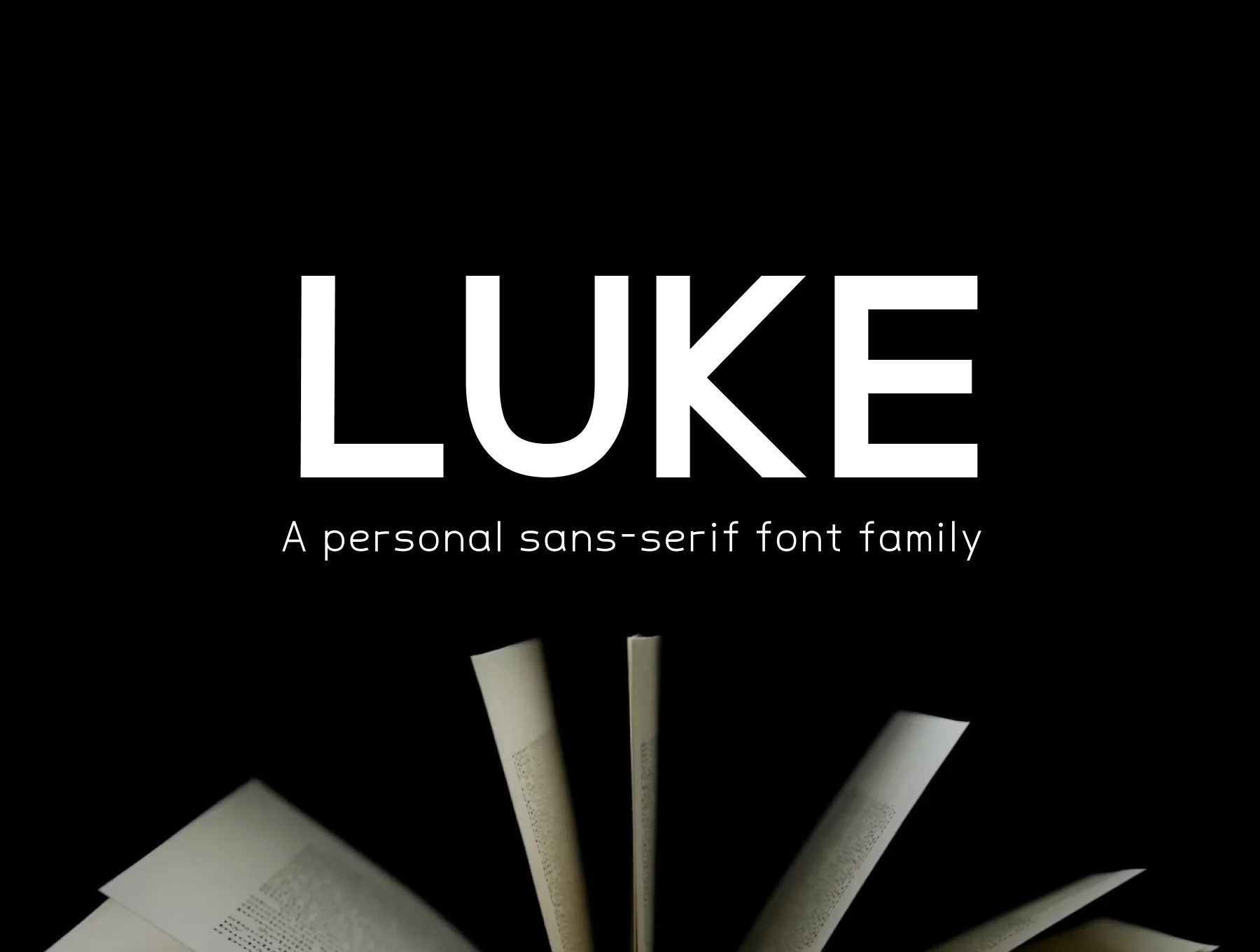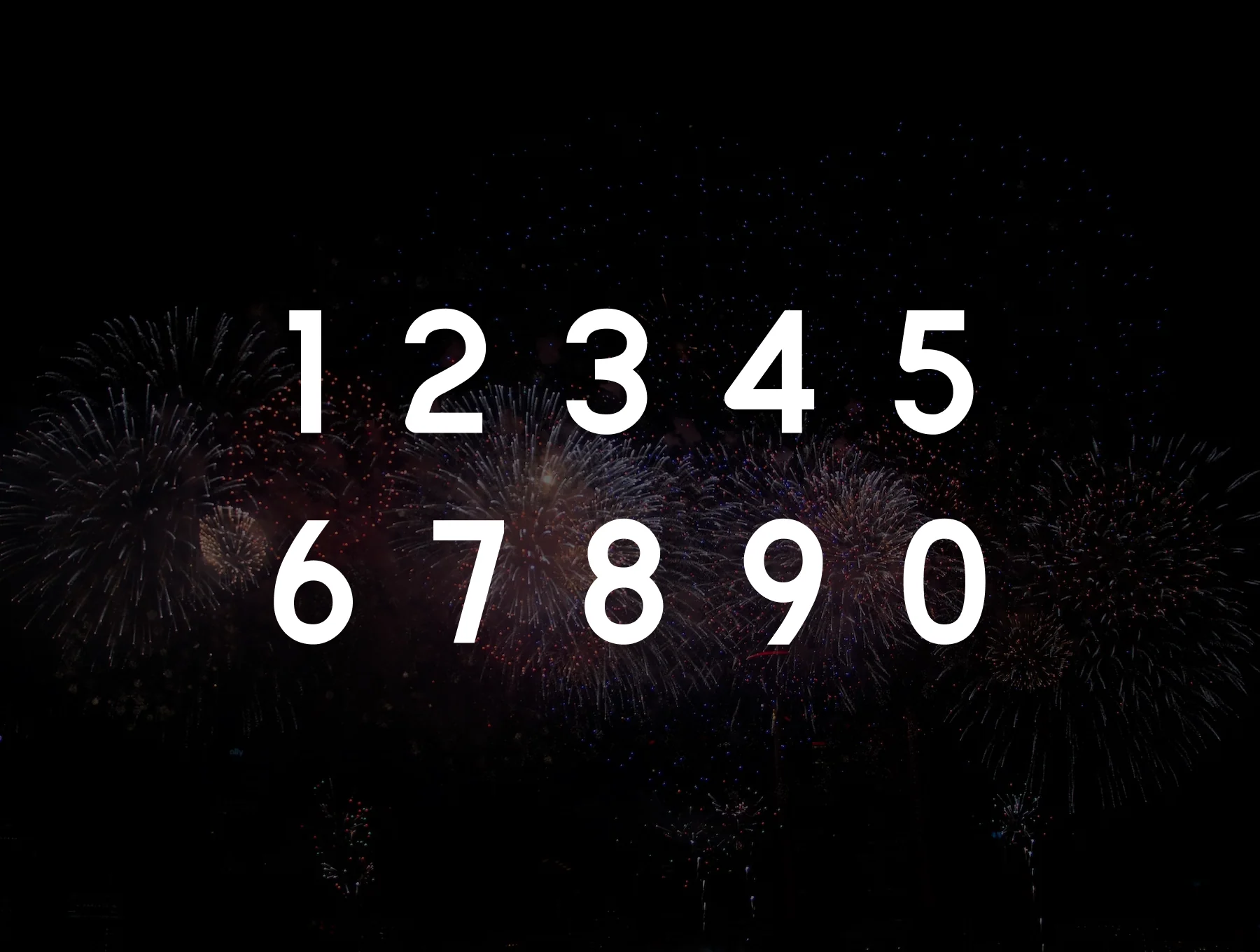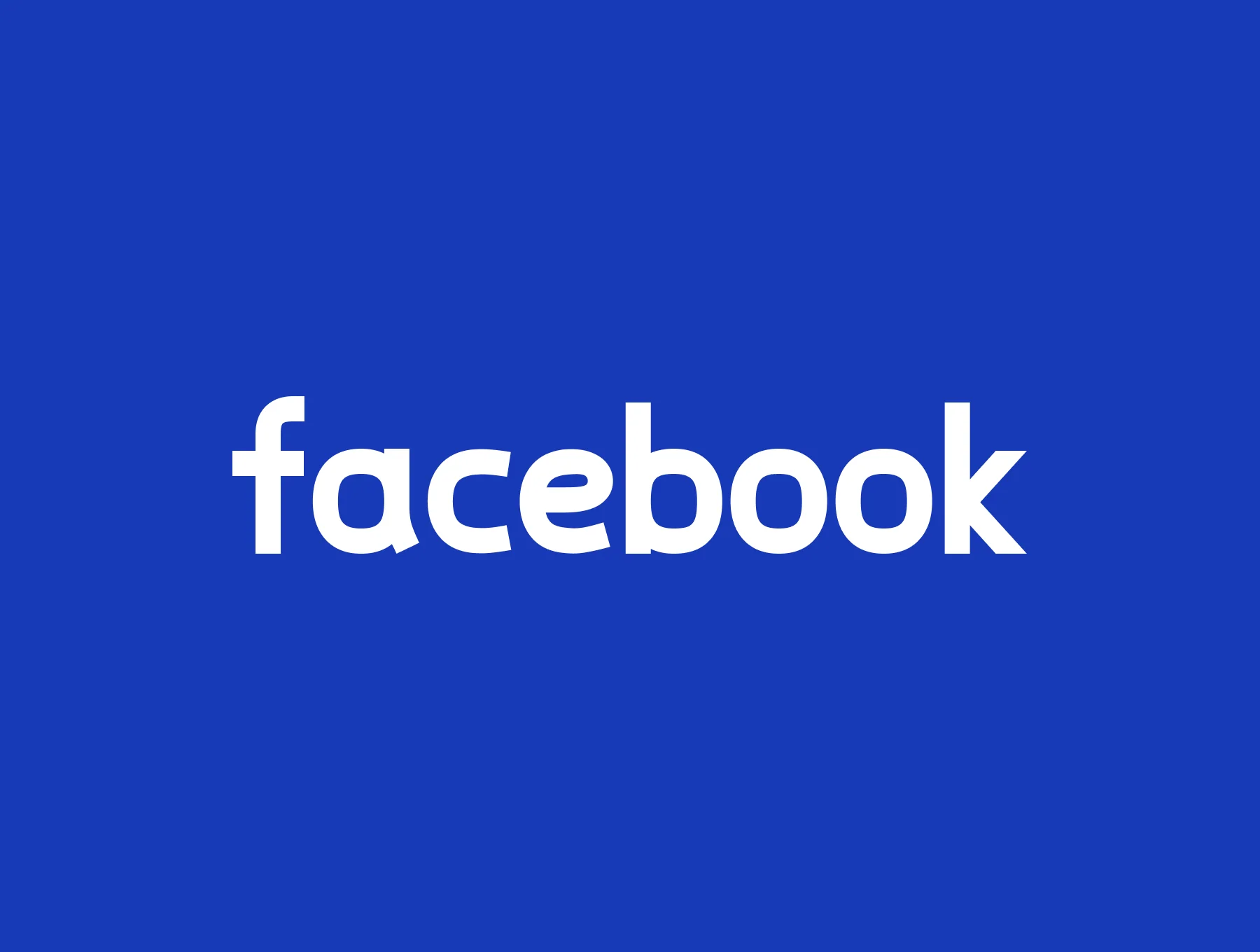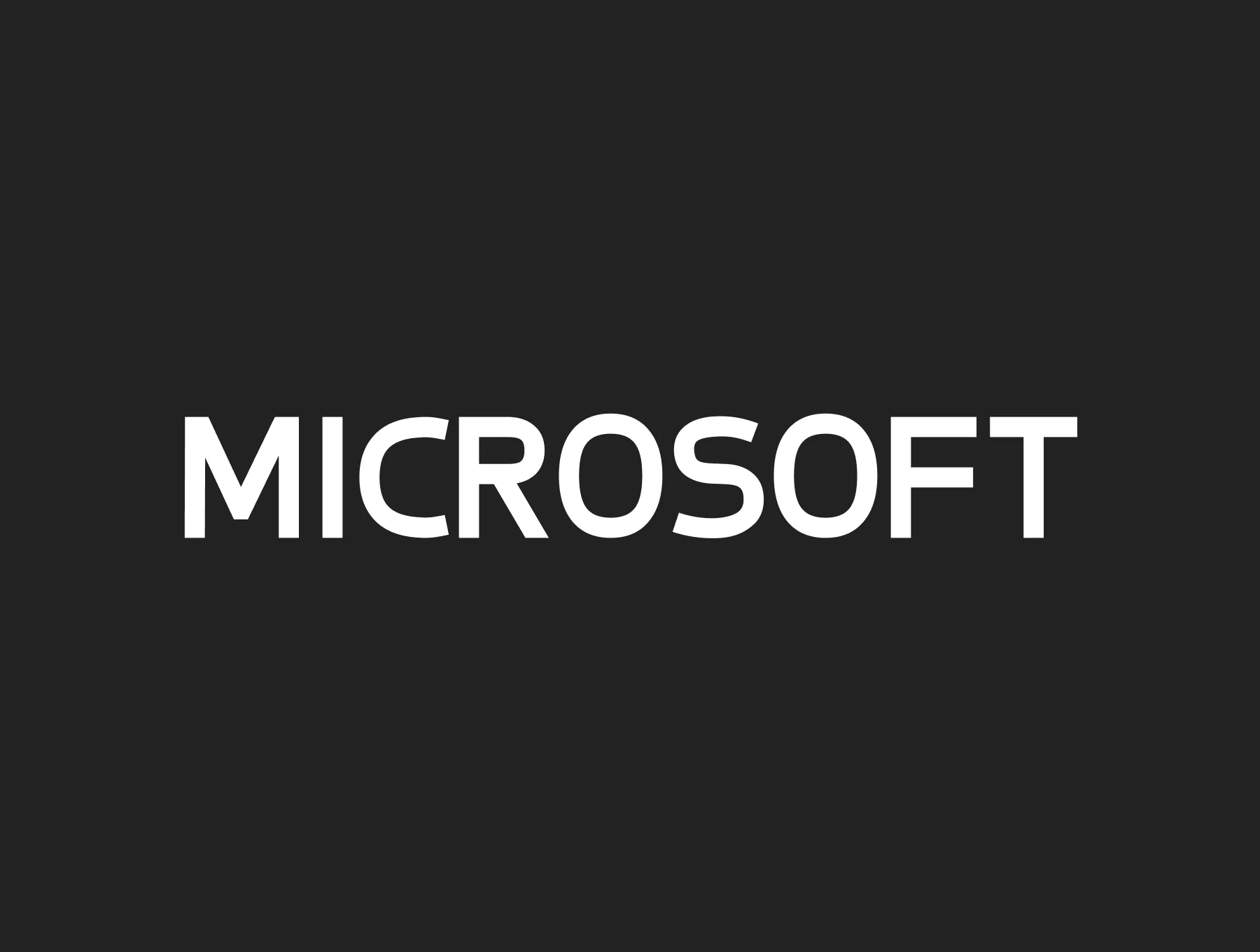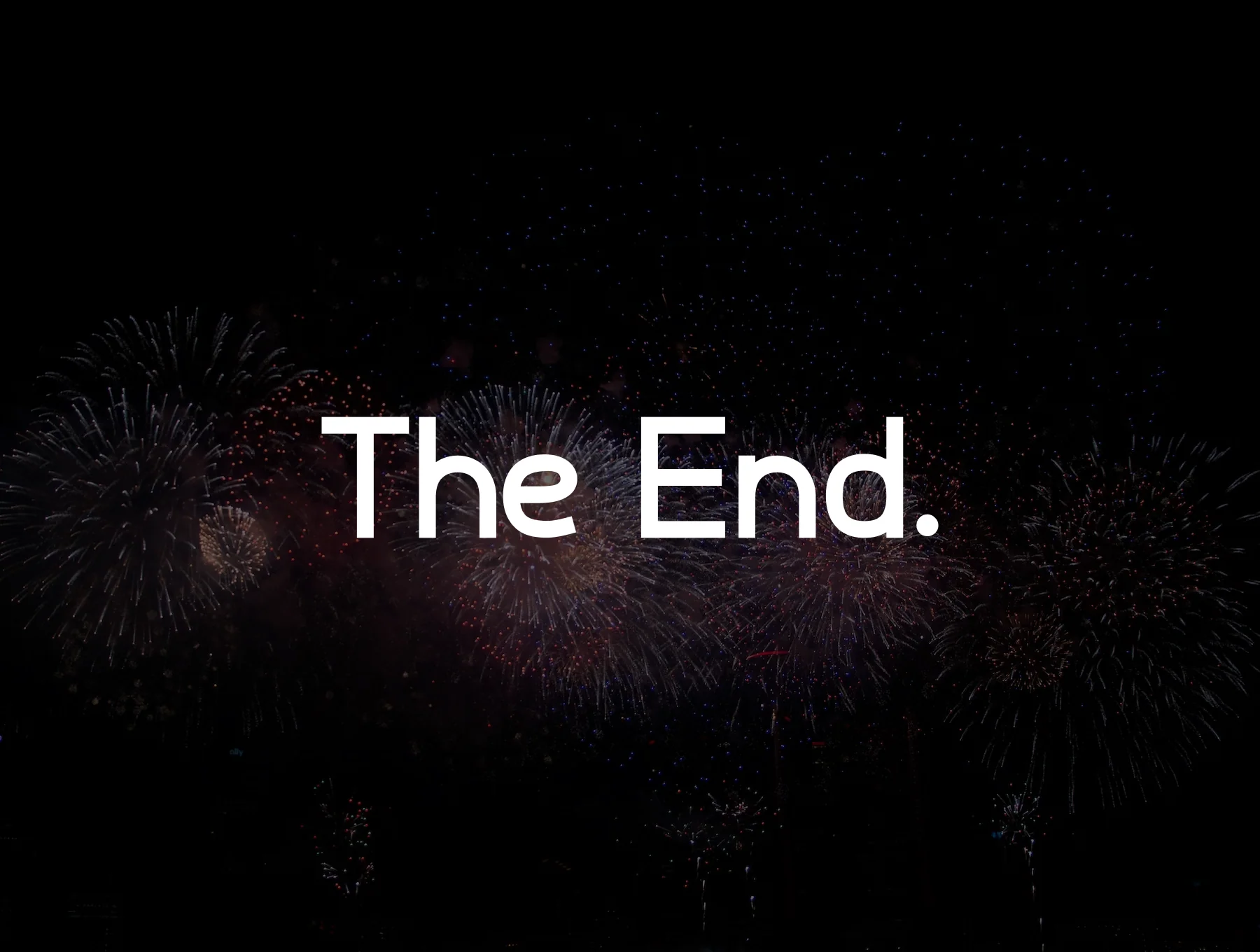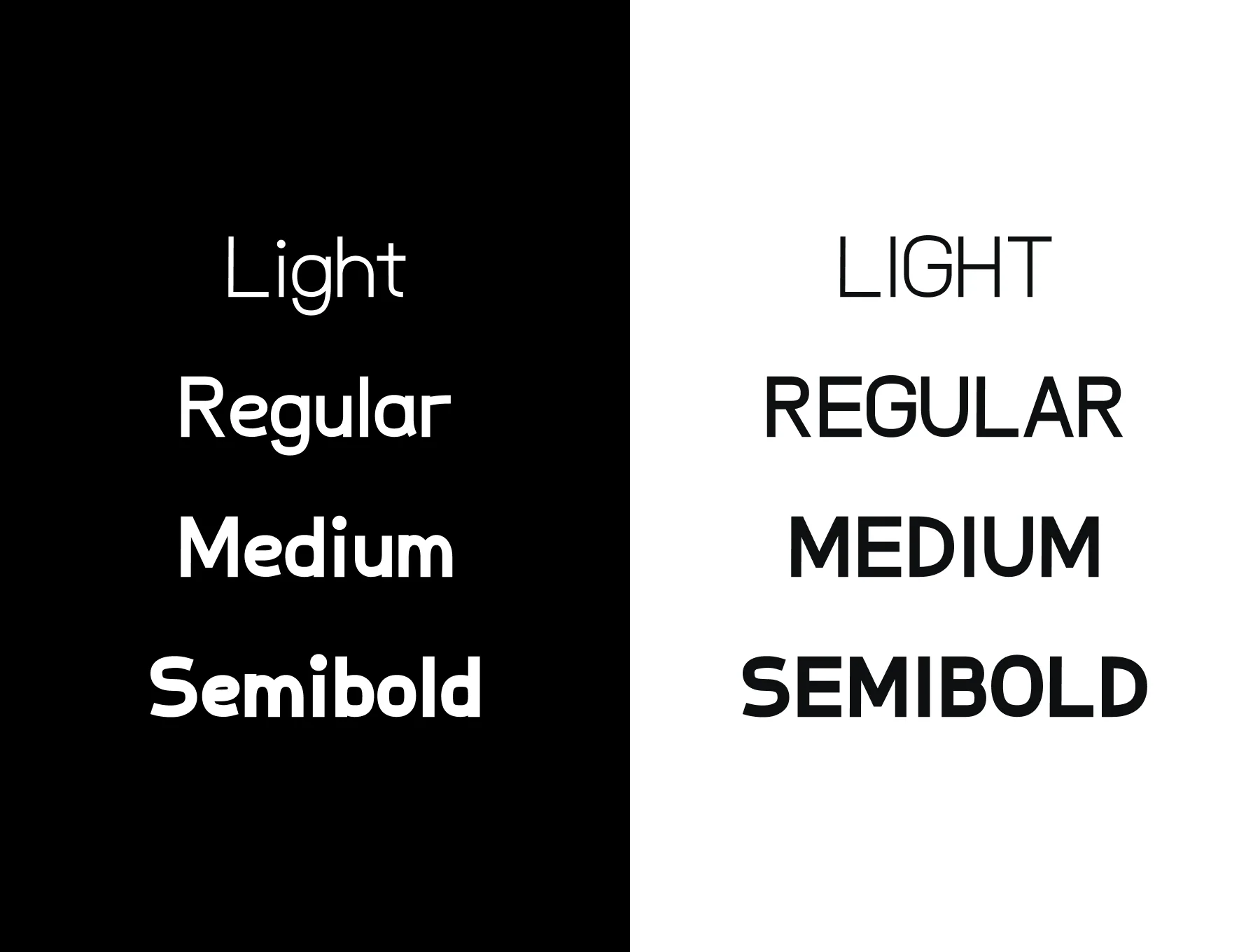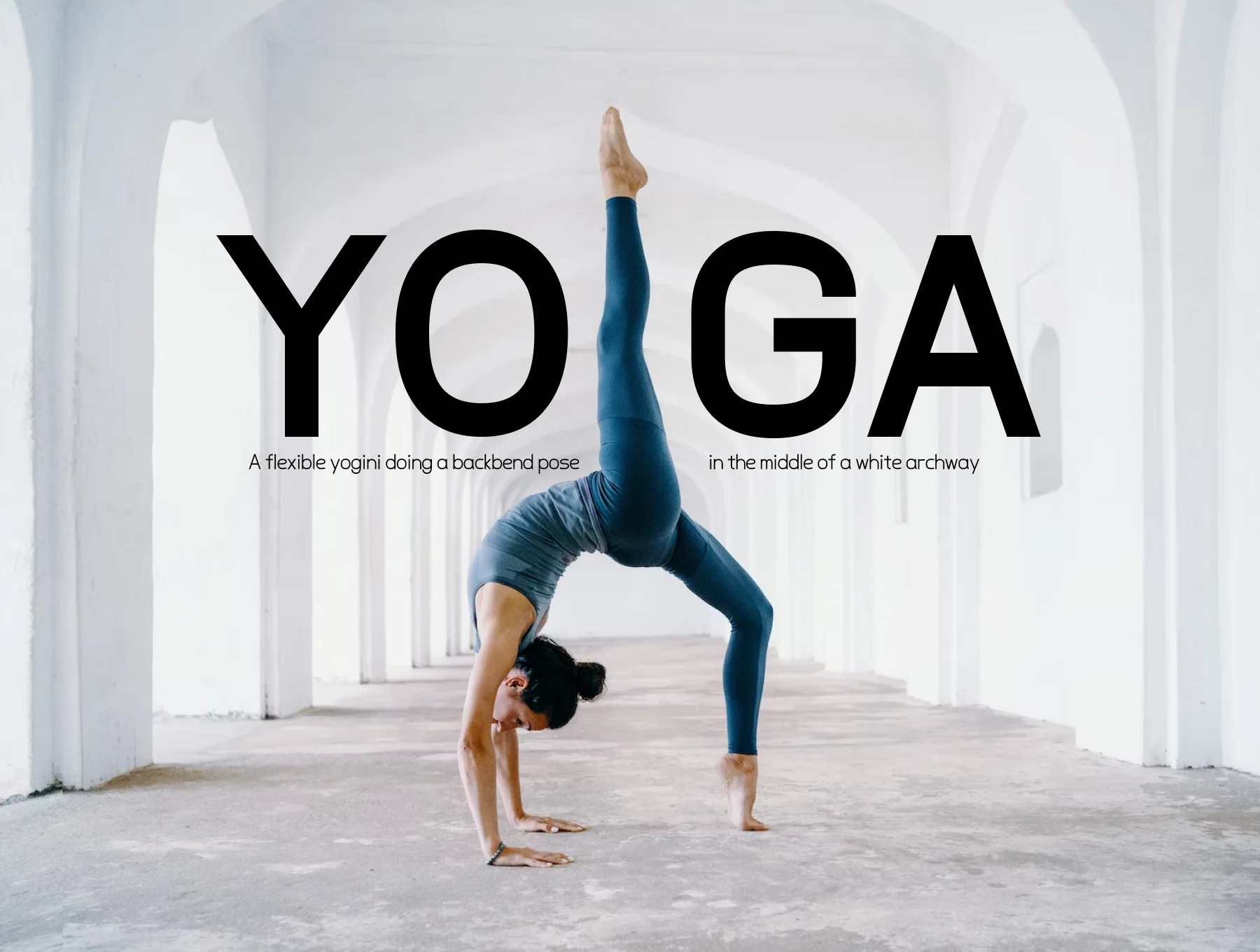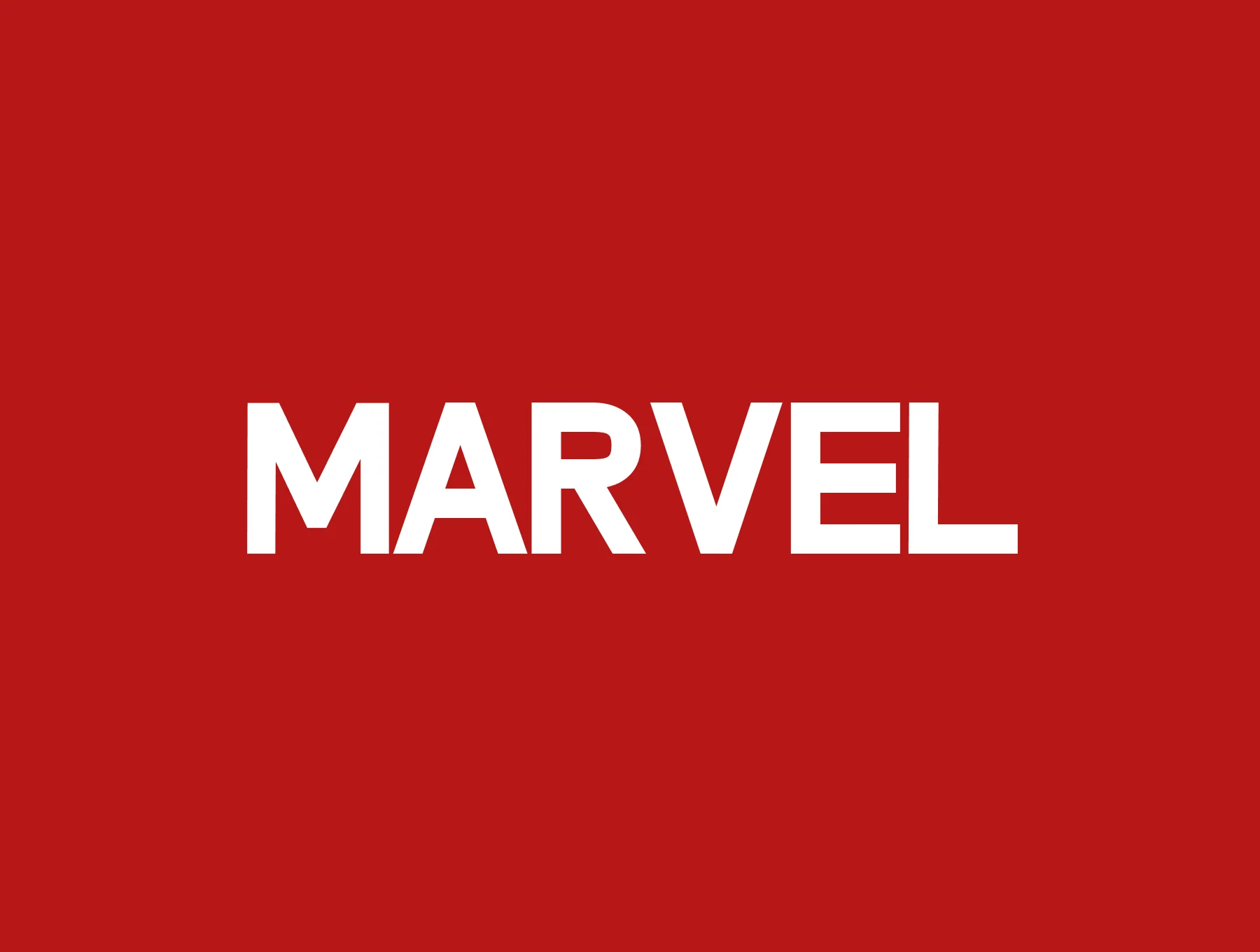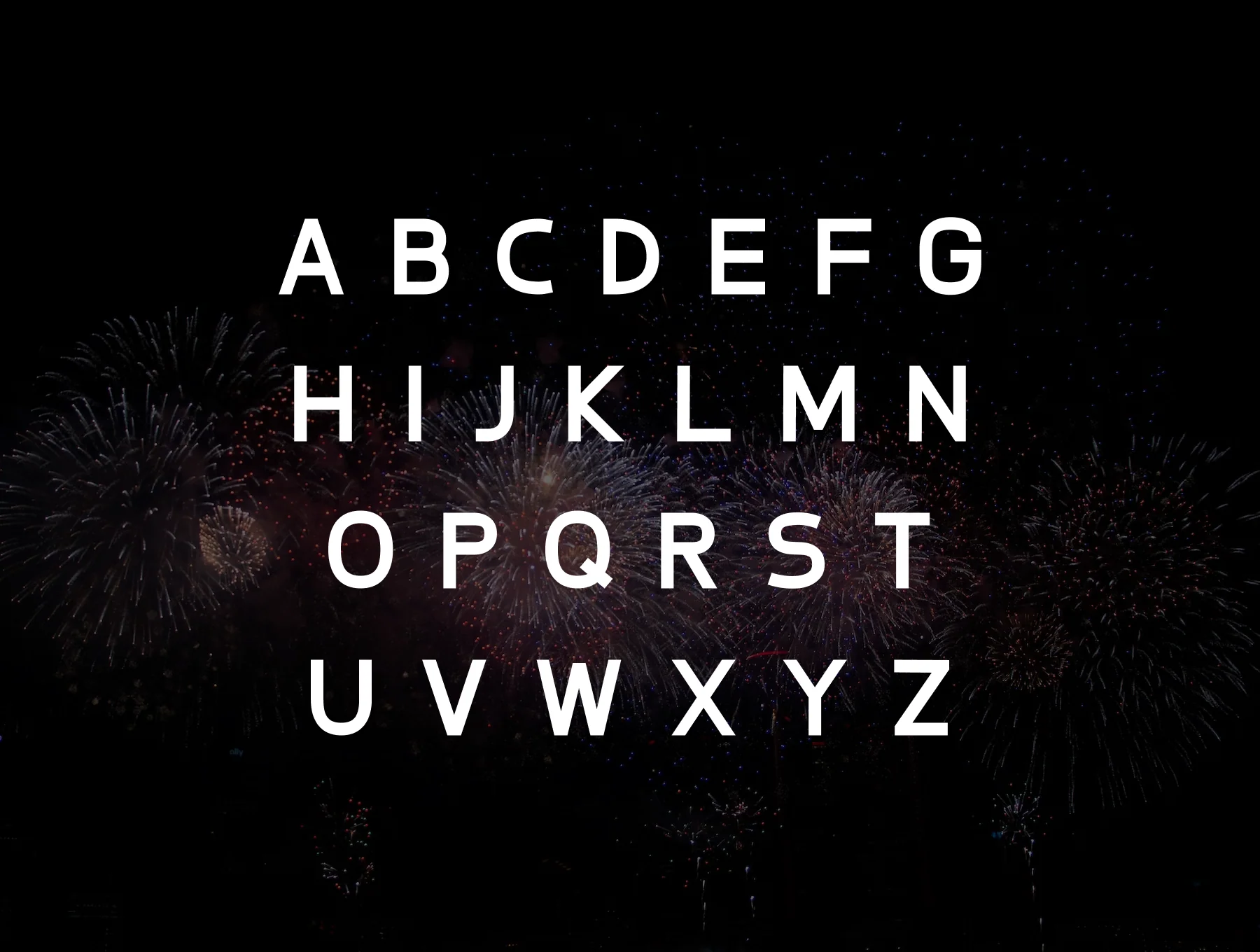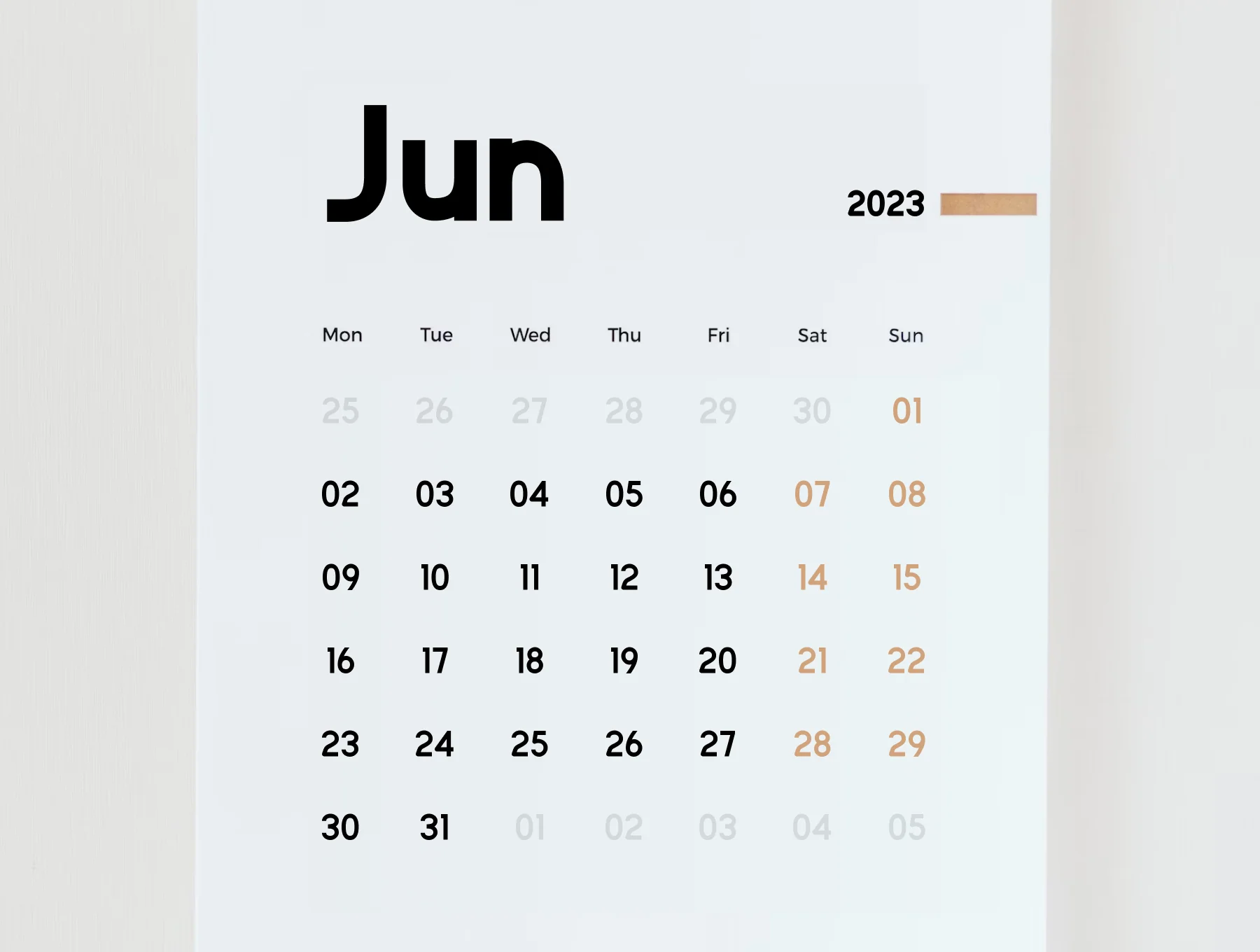
Luke Font Family
A sans-serif font family for personal use
Regular glyph set
Number characters
Alternate stylistic forms
Four style options
Luke is a minimalist-inspired font family suited for templates, brochures, videos, ads, branding, logos, invitations, layouts, elegant crafts, beauty projects, and more. Works with Adobe Illustrator, Photoshop, and CorelDRAW. PUA-encoded characters are accessible without extra software, with multilingual support included. Preview images are for display only and not included.